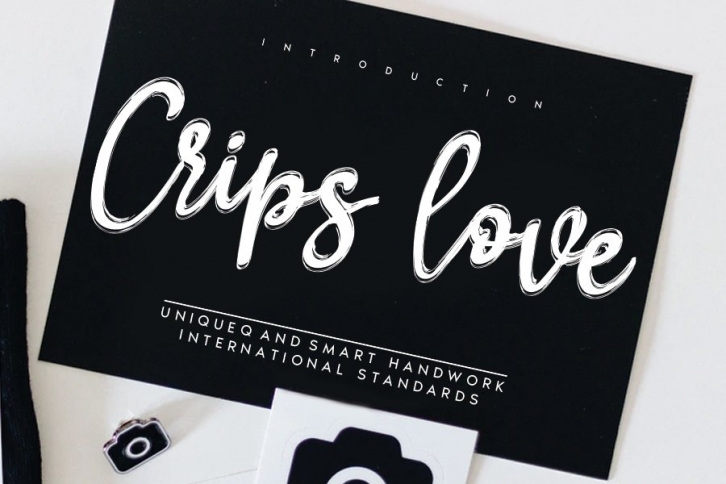
Crips love is a beautiful font that was designed by andikastudio. It's a great choice for designers and creatives who need such a font. It was released on August 8, 2020 and the file size is 9.51 MB. Crips love may give a more youthful, expressive and casual look to your project. It is a very beautiful, refined, elegant, and high-quality font.